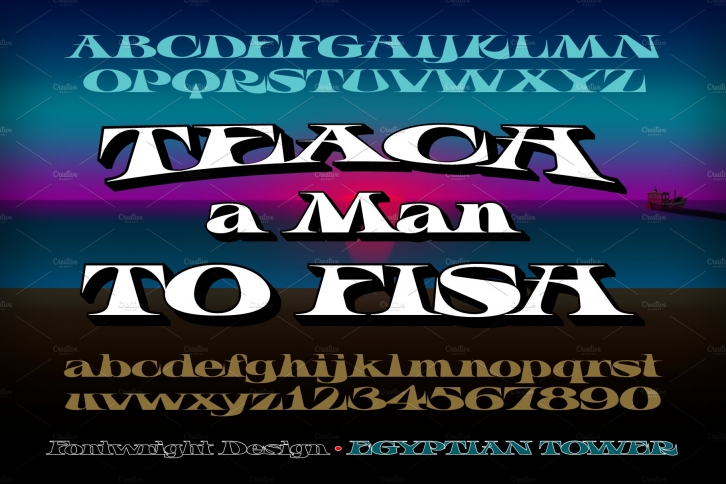
Egyptian Tower is a Nouveau-Modern, Designers, Display Family. This novel, crisp, bold and refreshing 4 Font layerable collection is designed with sloping stems and is tightly spaced intentionally to maintain balance. Egyptian Tower is available in OpenType OTF or TrueType TTF font formats. With 415 characters in each font, including alternates, this family supports most western and central European Latin-based languages.